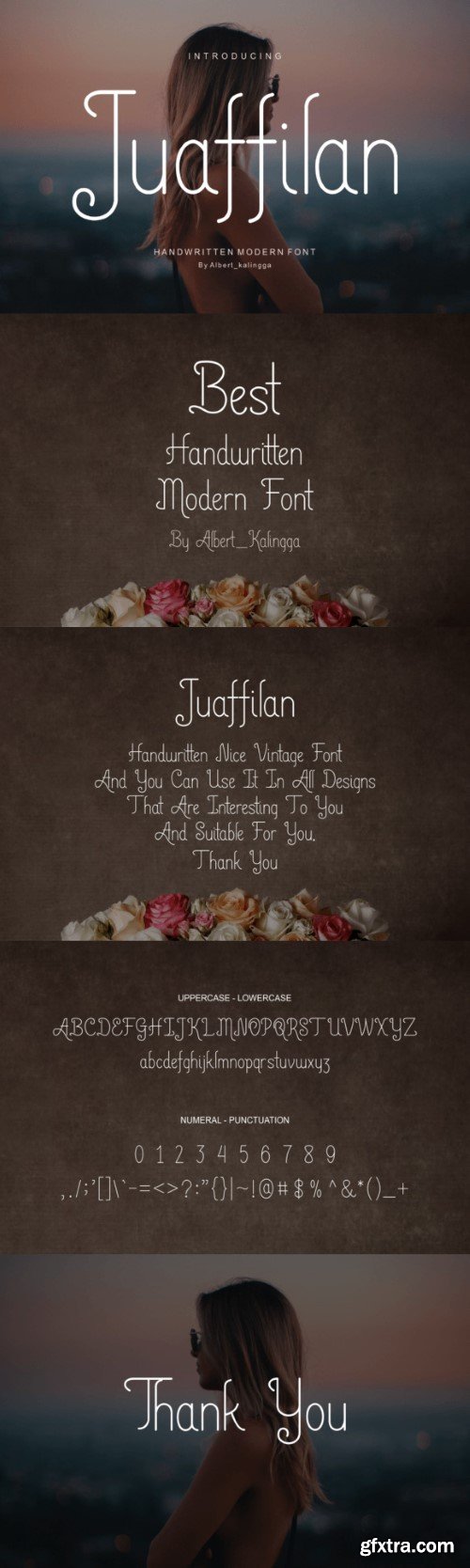
Jurafilan Font
Introducing our new product **Juaffilan Font** – Modern Font
**Juaffilan Font** – Modern Font is a bold and authentic display font. The font is suitable for any branding project like logo, esport, and many more. outstanding in a wide range of contexts.